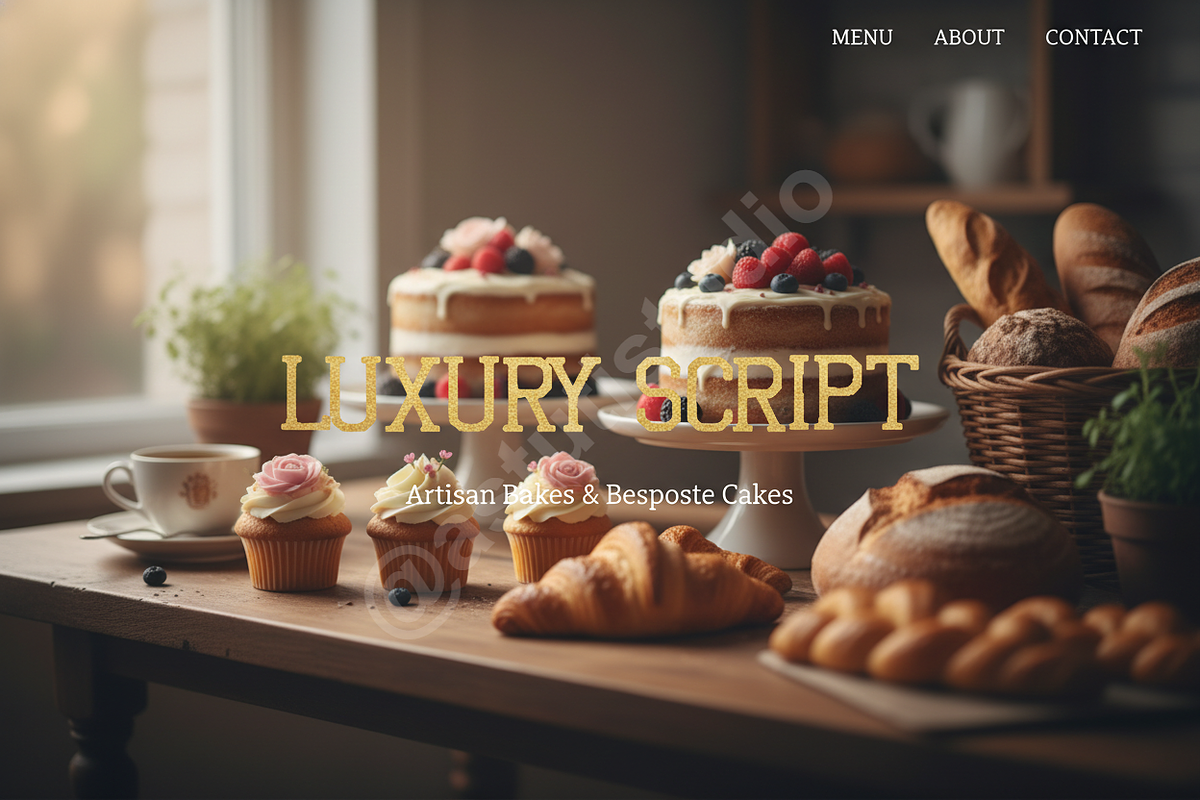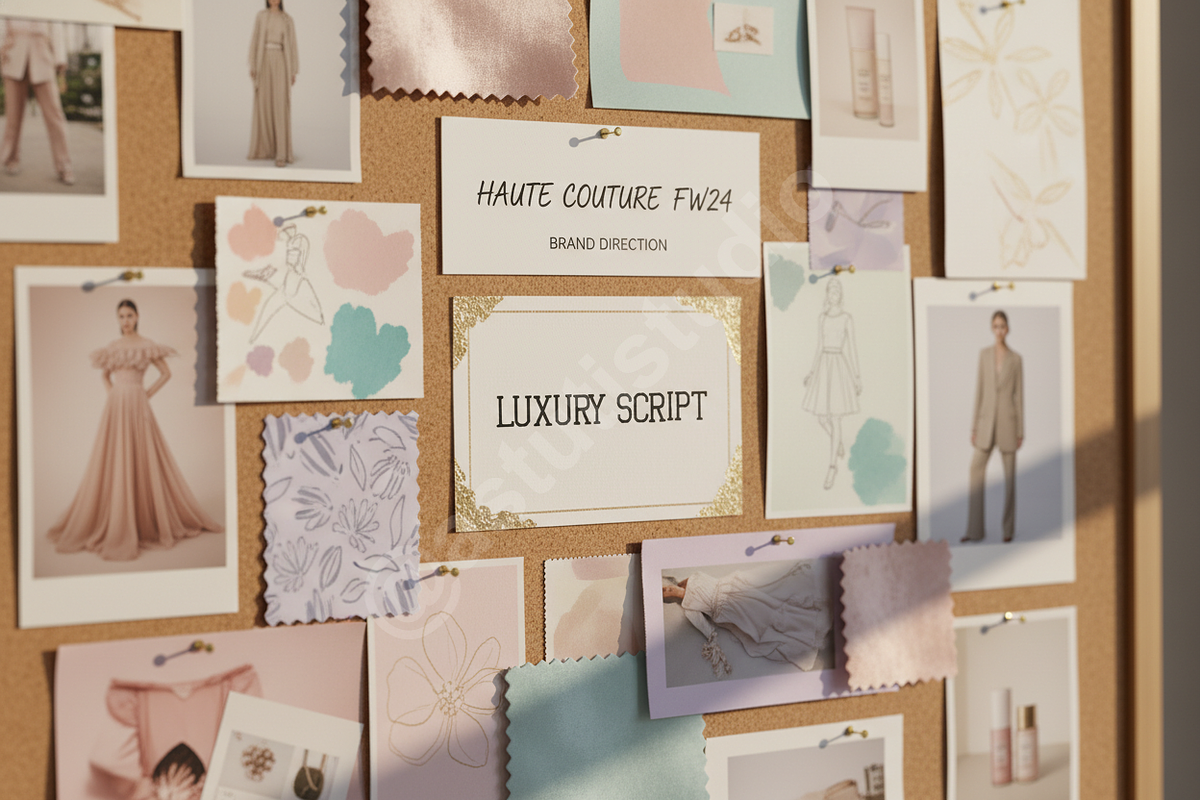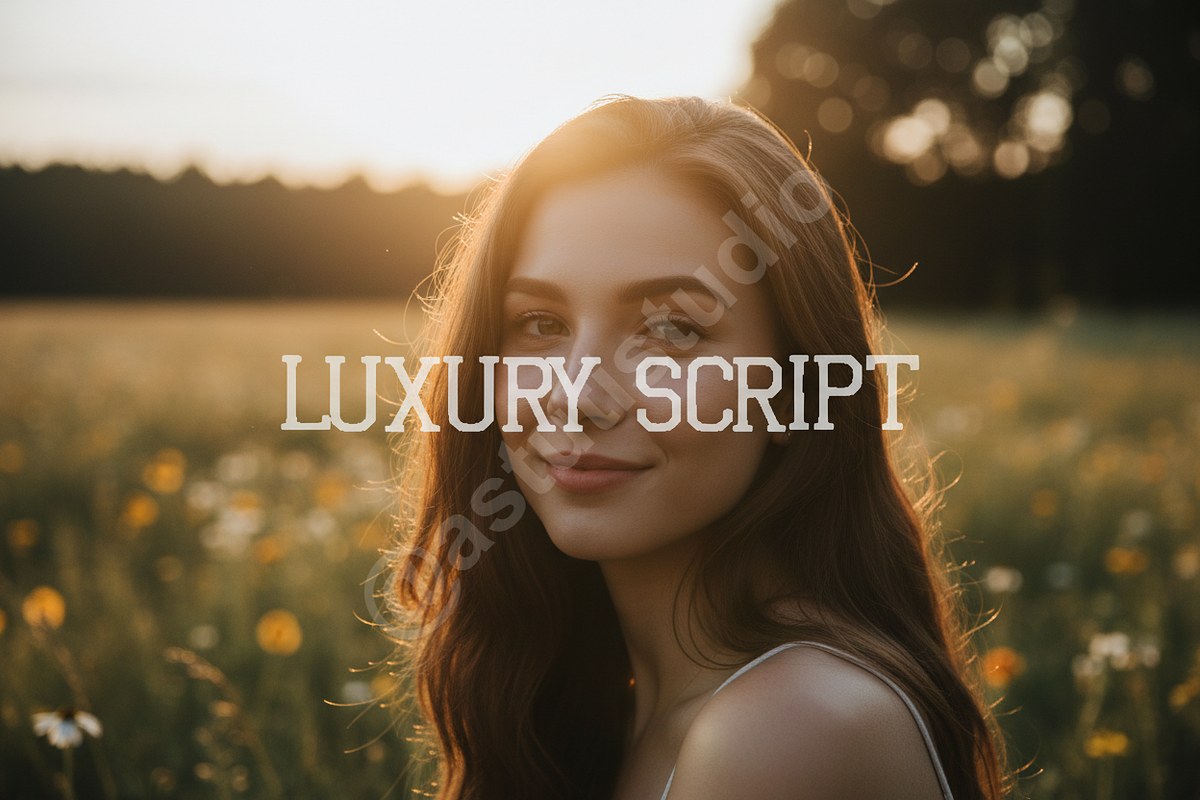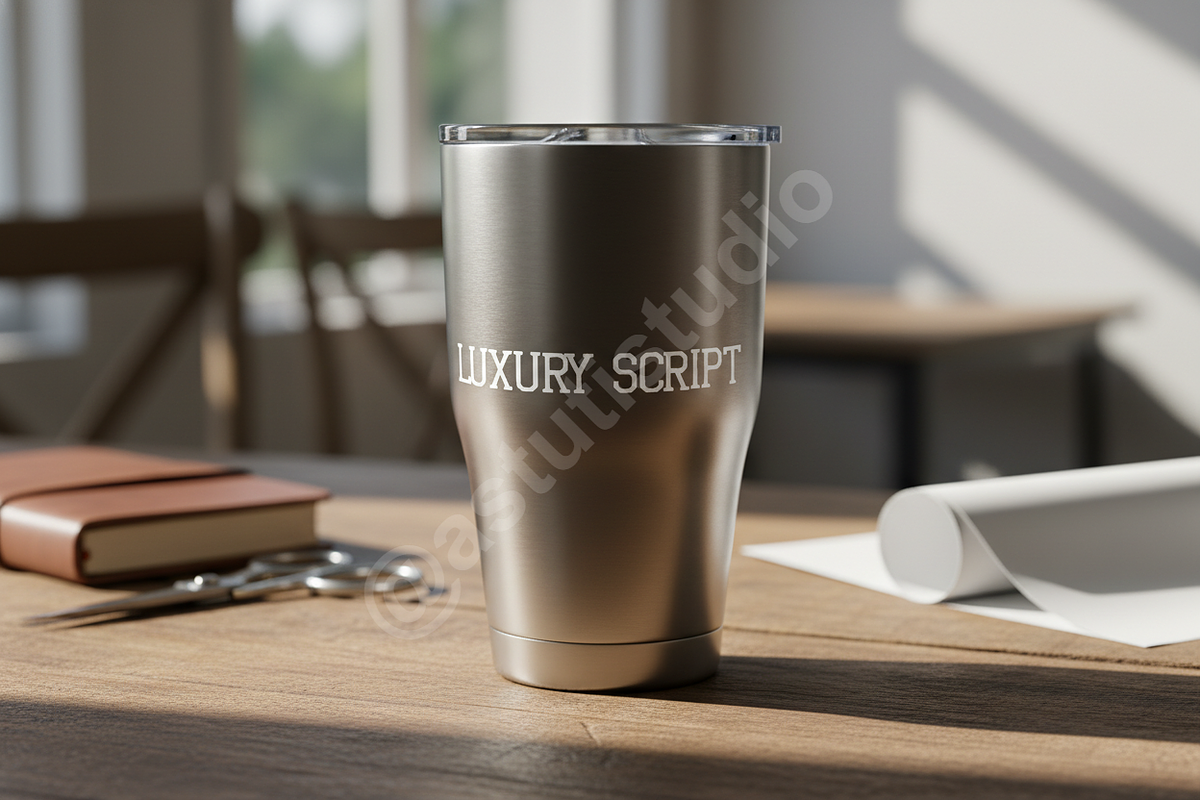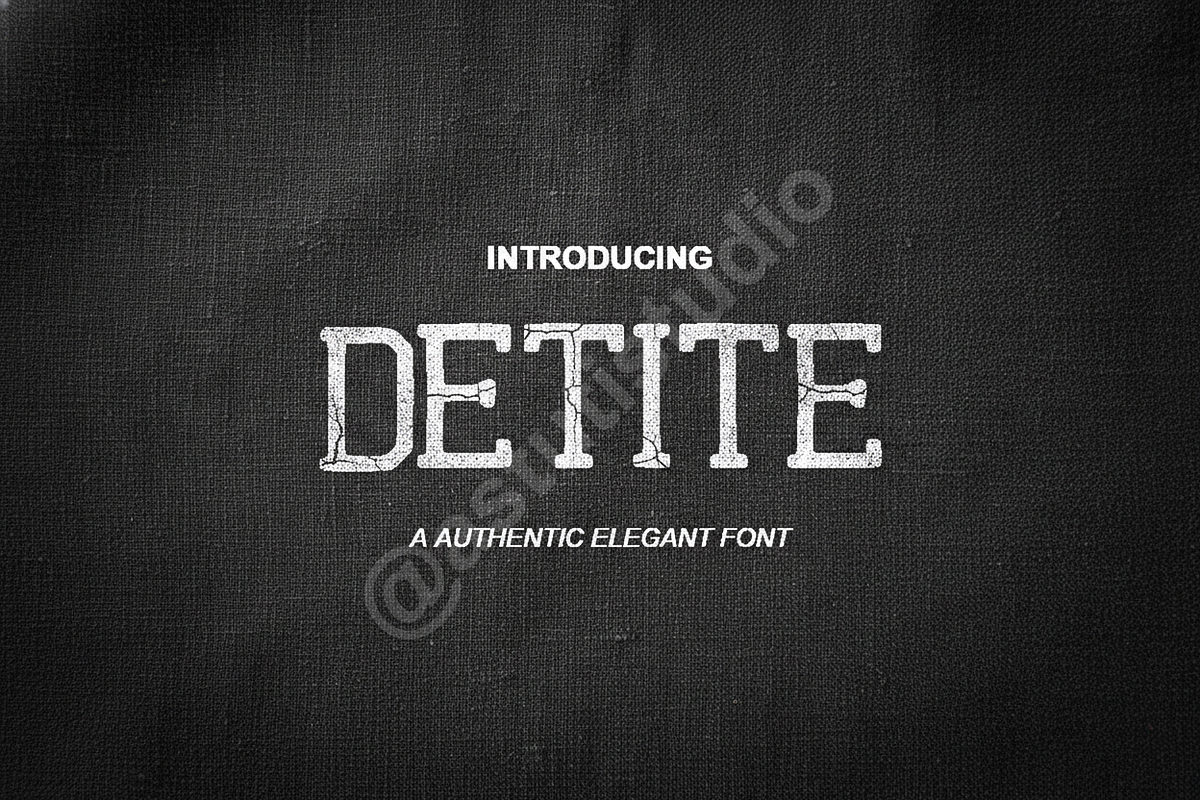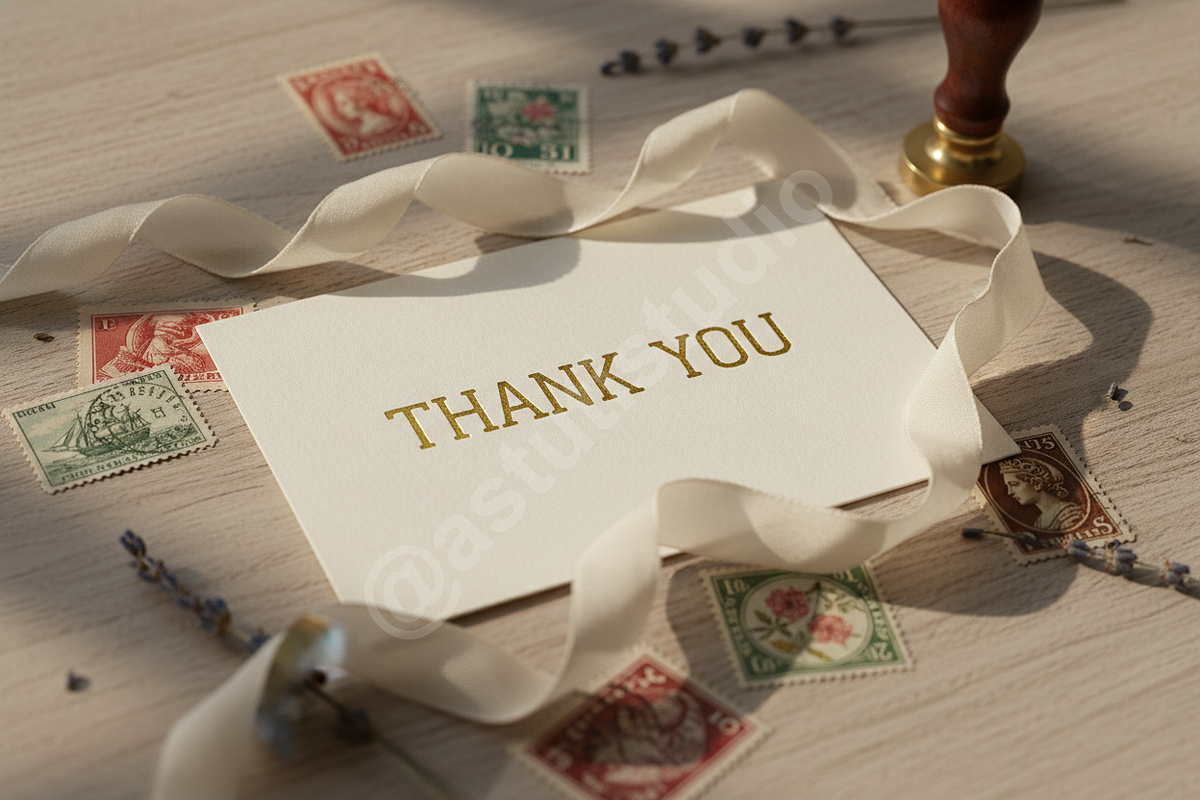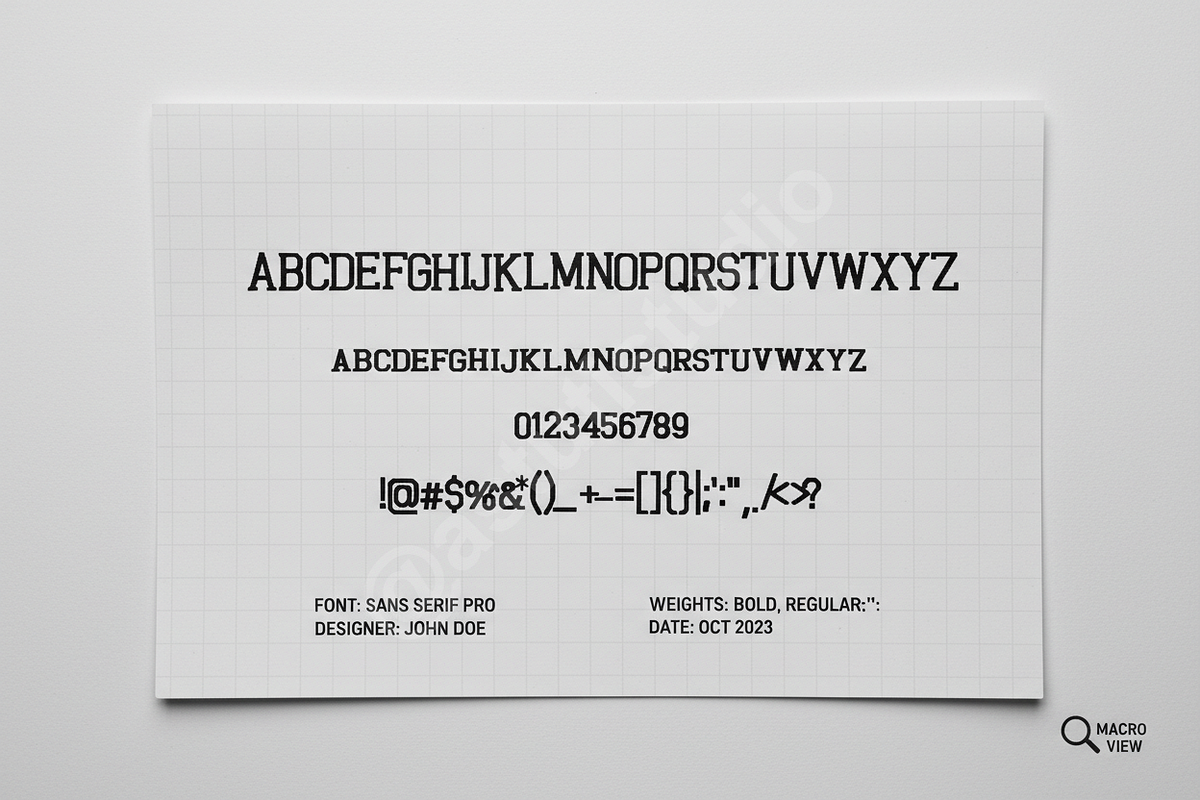
Detite – Elegant & Modern Sans Serif
Introducing Detite, an exquisite sans serif typeface meticulously crafted to exude sophistication and timeless elegance. With its refined lines and balanced proportions, Detite is the quintessential choice for projects demanding a touch of luxury and professionalism. It is perfectly suited for high-end branding, captivating editorial designs, and impactful social media graphics, ensuring your message is delivered with clarity and style.
- Elegant & Modern Aesthetic: Designed to convey a sense of luxury, prestige, and contemporary style.
- Versatile Application: Ideal for sophisticated logos, magazine layouts, striking headlines, website designs, product packaging, and social media campaigns.
- Comprehensive Character Set: Includes uppercase and lowercase letters, numbers, punctuation, and extensive multilingual support.
- Smooth Legibility: Optimized for both large display sizes and smaller text, maintaining readability across all mediums.